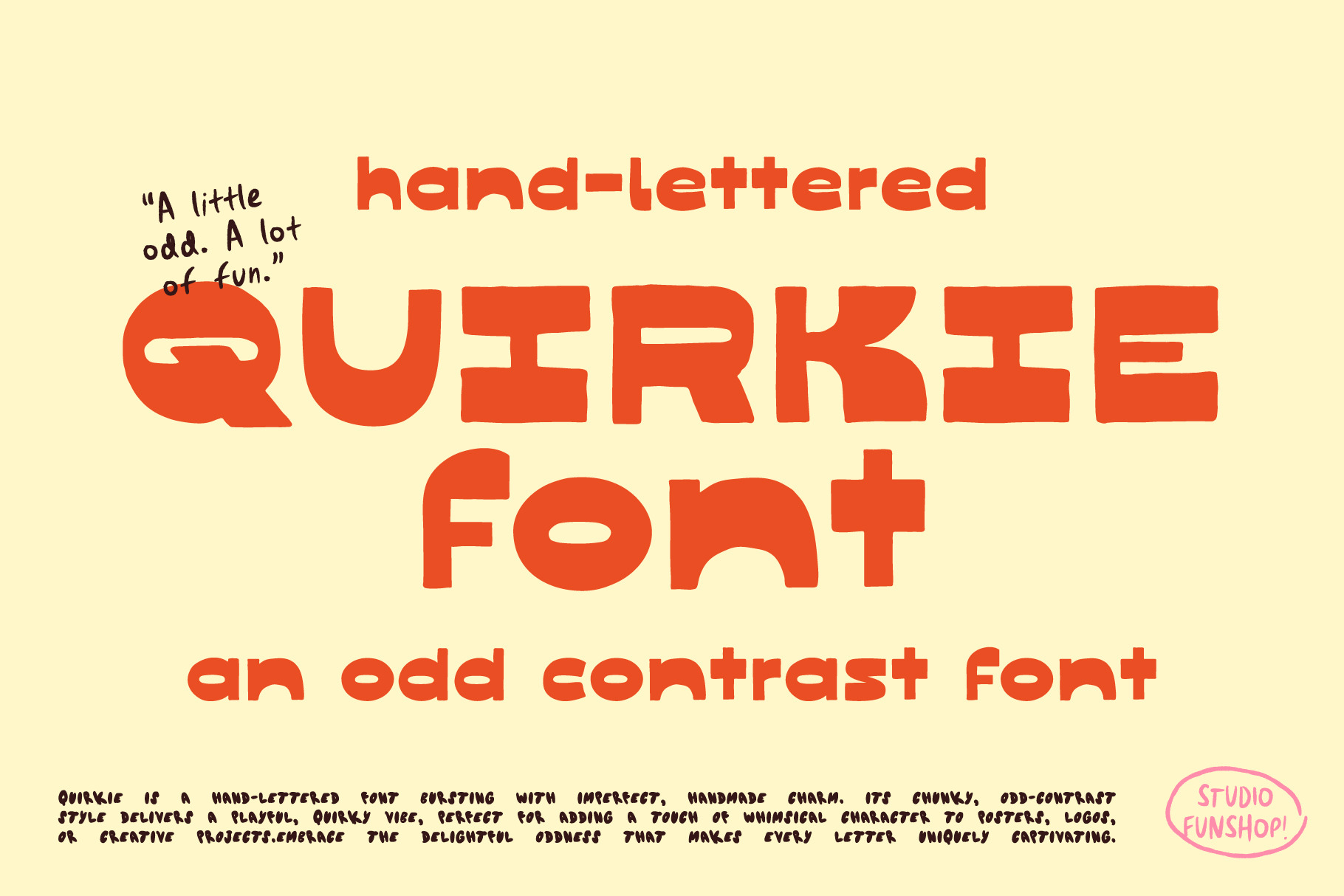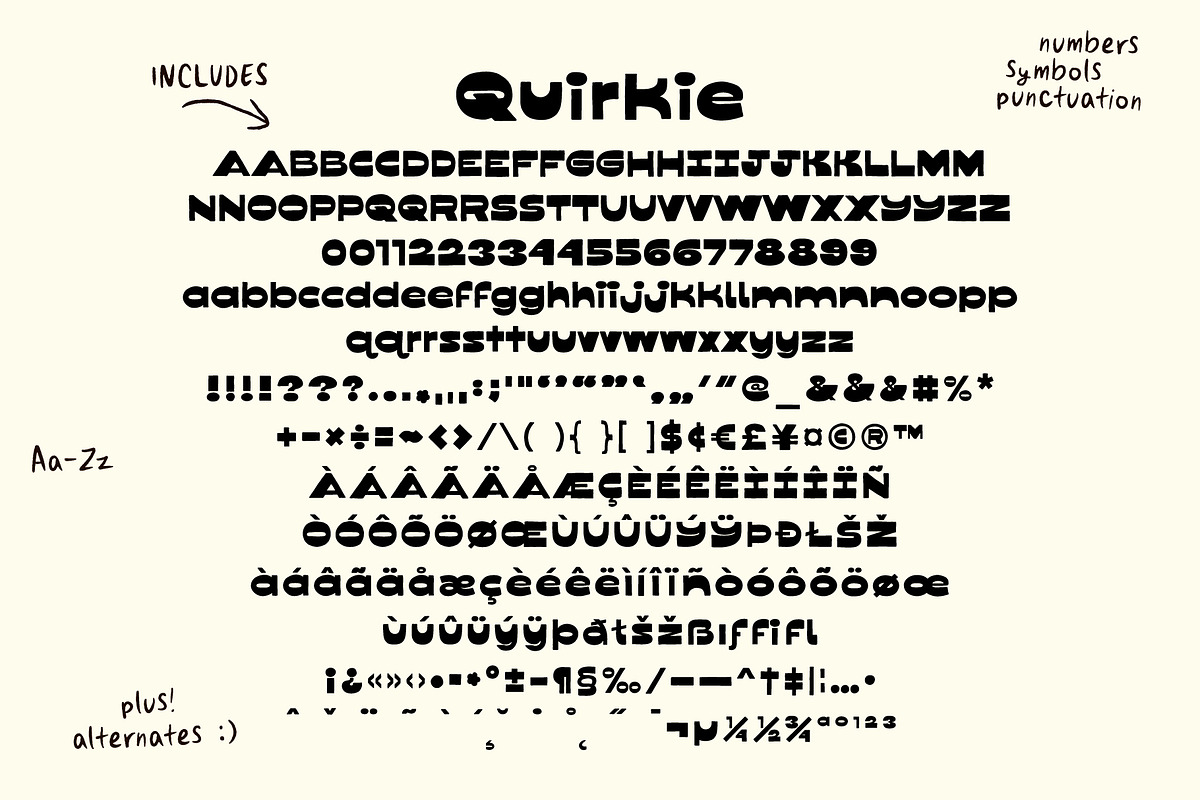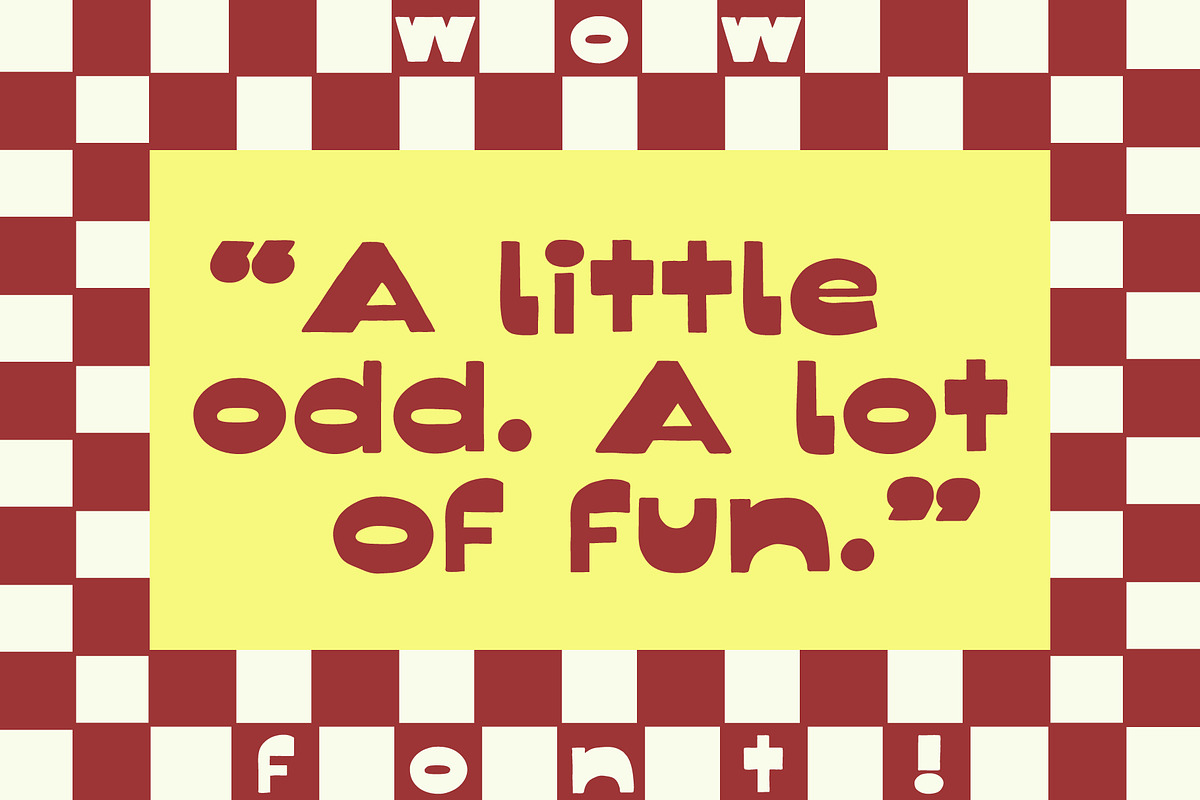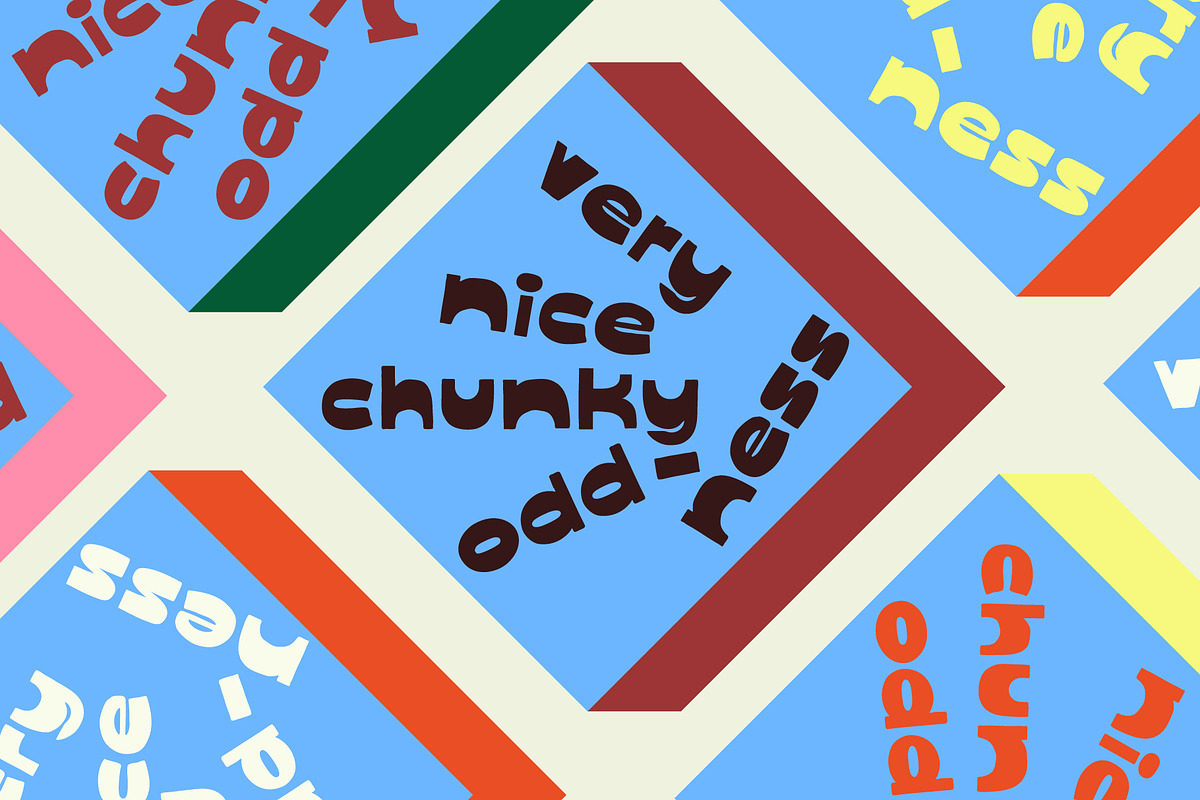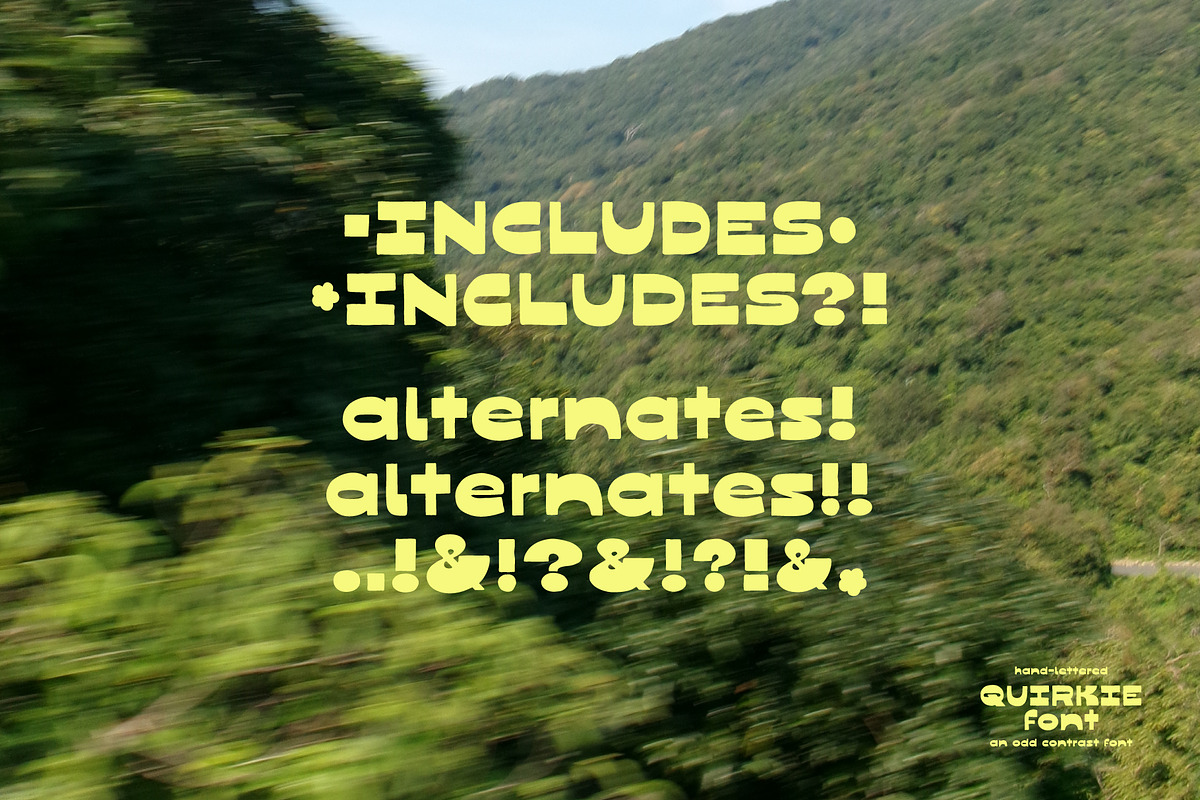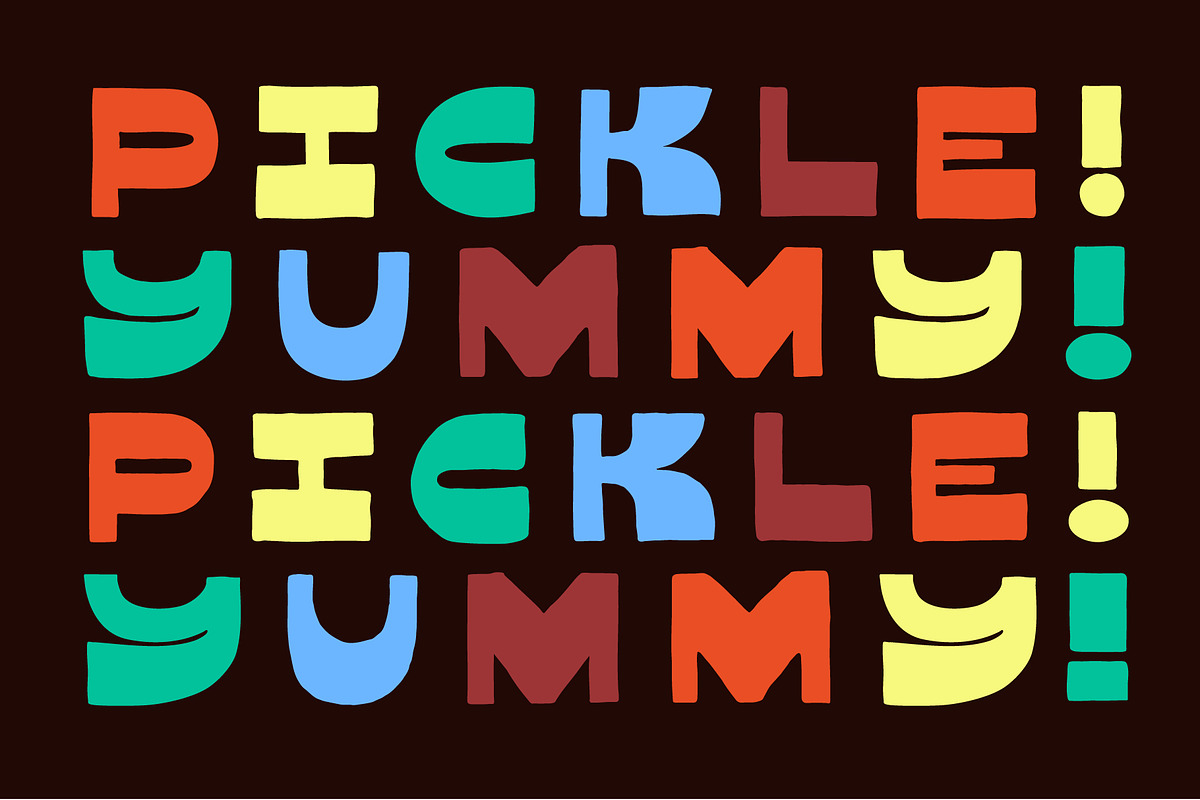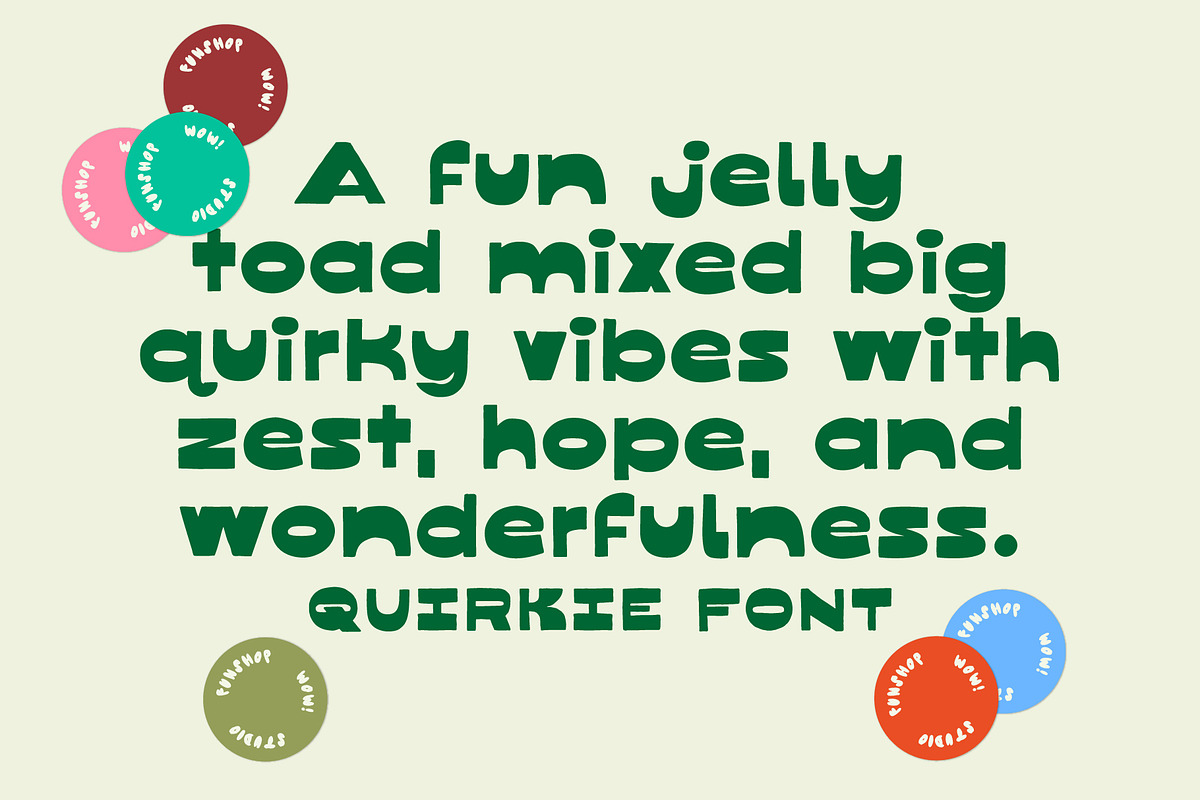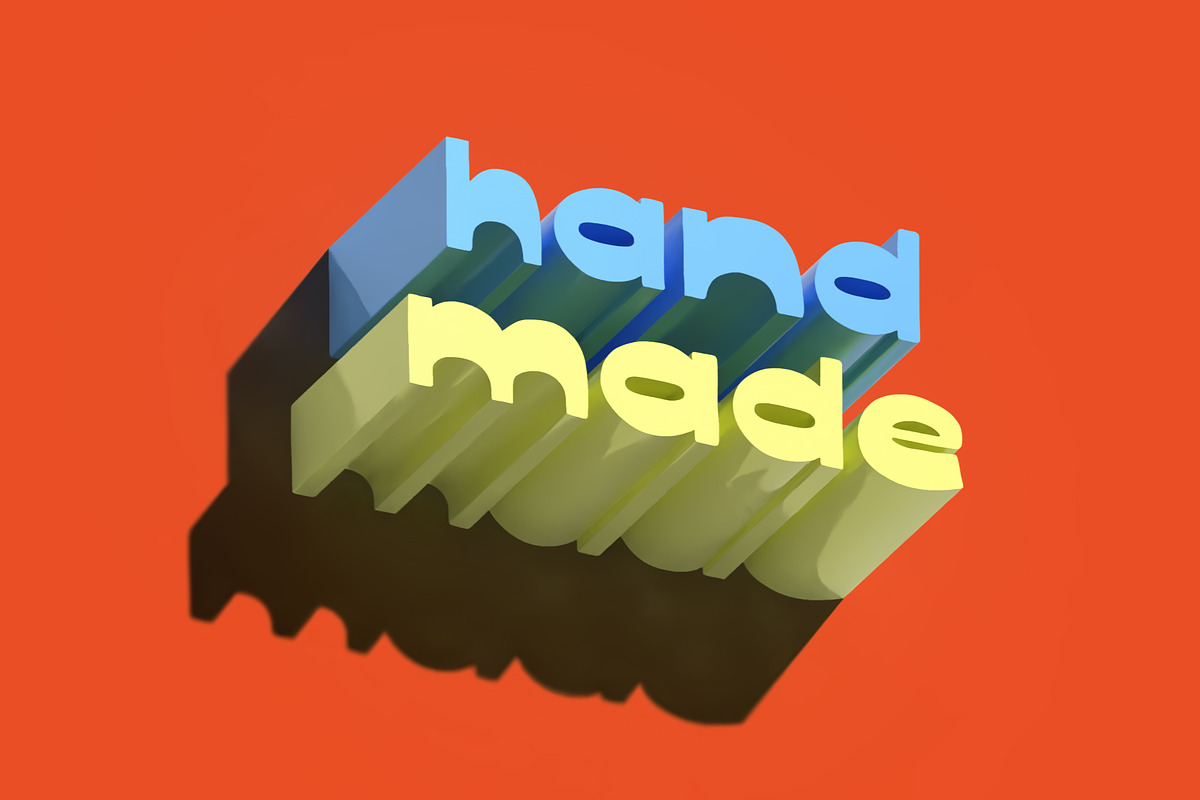
Quirkie - Odd Contrast Font
Quirkie is a hand-lettered font bursting with imperfect, handmade charm. Its chunky, odd-contrast style delivers a playful, quirky vibe, bursting with big personality and zero pressure to be perfect.
Every letter in Quirkie is hand-drawn, delivering a unique, handmade look. Includes alternates for extra customization. Enjoy!
What's in the font? Uppercase and Lowercase Aa-Zz! Numbers! Symbols! Punctuation! Alternates! Some Multi-lingual Glyphs (see slides!)